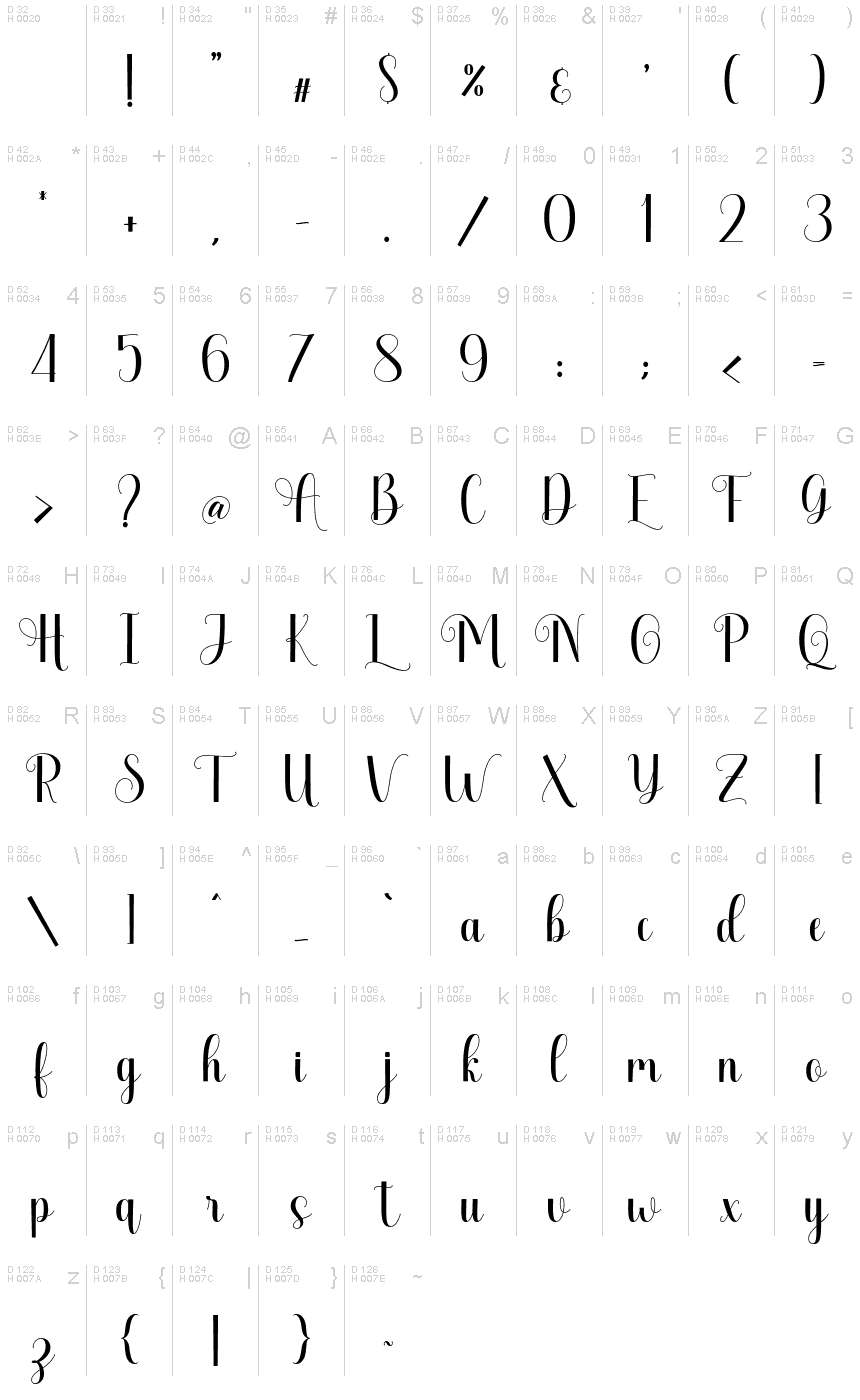
Agisthina_DEMO
Agisthina is a narrow calligraphy script font designed by Maqsum Kamil Shiddiq. Its elegant style makes it perfect for designing logos, invitations, and other creative projects requiring a sophisticated touch.